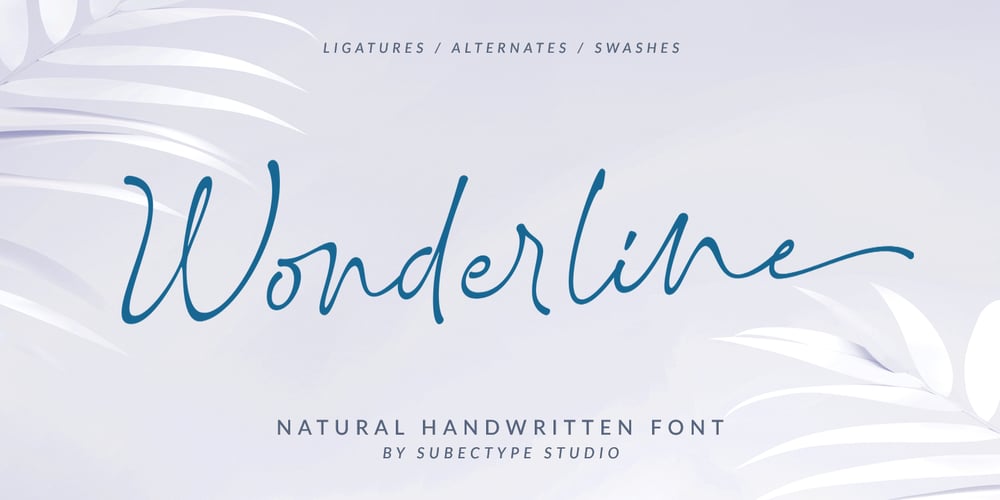
Wonderline Font Family was designed by Rangga Subekti and published by Subectype. Wonderline contains 2 styles and family package options. Wonderline is a luxury modern calligraphy font with with a touch of handwriting style. This font is perfect for creating signature logos and watermarks for photography studios or wedding invitations. Wonderline includes a full set of elegant hand lettered uppercase and lowercase letters, numerals, a large range of punctuation and 58 beautiful ligatures. All lowercase letters include beginning and ending swashes, giving Wonderline a realistic hand-lettered style. In order to use the beautiful swashes, you need a program that supports OpenType features such as Adobe Illustrator CS, Adobe Photoshop CC, Adobe Indesign and Corel Draw. If you have questions about our latest font, please provide a short message to us. Thank you Subectype studio